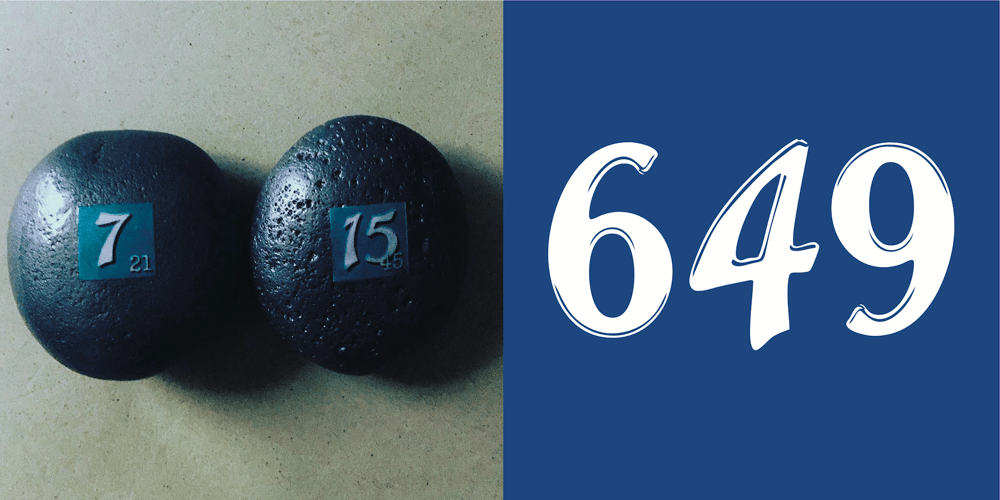
Dirty Numbers
Dirty Numbers font
Dirty Numbers Font Family was designed by Joseph Coniglio and published by Coniglio Type. Dirty Numbers contains 1 styles and family package options. DIRTY NUMBERS LTDAt $1 US dollar each: Dirty Numbers – Provides (9) individual sets of unique numerals [0 thru 9] and nothing else. That is all. Very limited character sets integrated into one font by Coniglio Type -and- a very inexpensive set of marketing numerals. They are revivals from type crafted images and they are monospaced, easy to use and to kern the way you wish. You will have to review your glyphs to locate them and they were pasted in the most logical and accessible places and made economical to you for your special design and crafts needs. Dirty Numbers by Joseph Coniglio, Coniglio Type 2021.